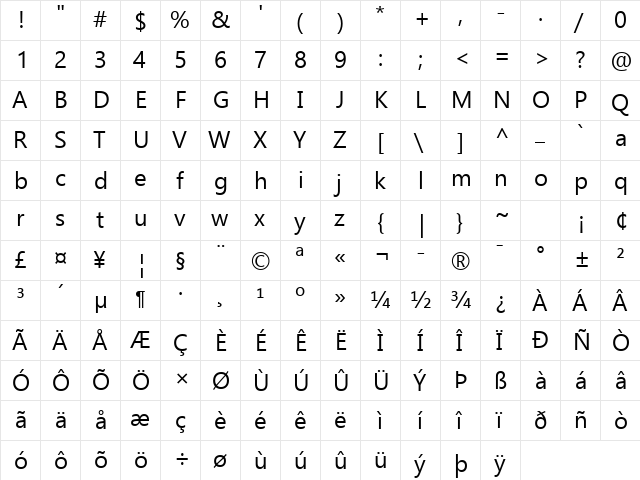
Gadugi Regular
| Foundry | Microsoft Corporation |
Design Context for Gadugi Typeface
Gadugi is a composed and adaptable typeface that performs quietly and consistently across a wide range of design contexts.